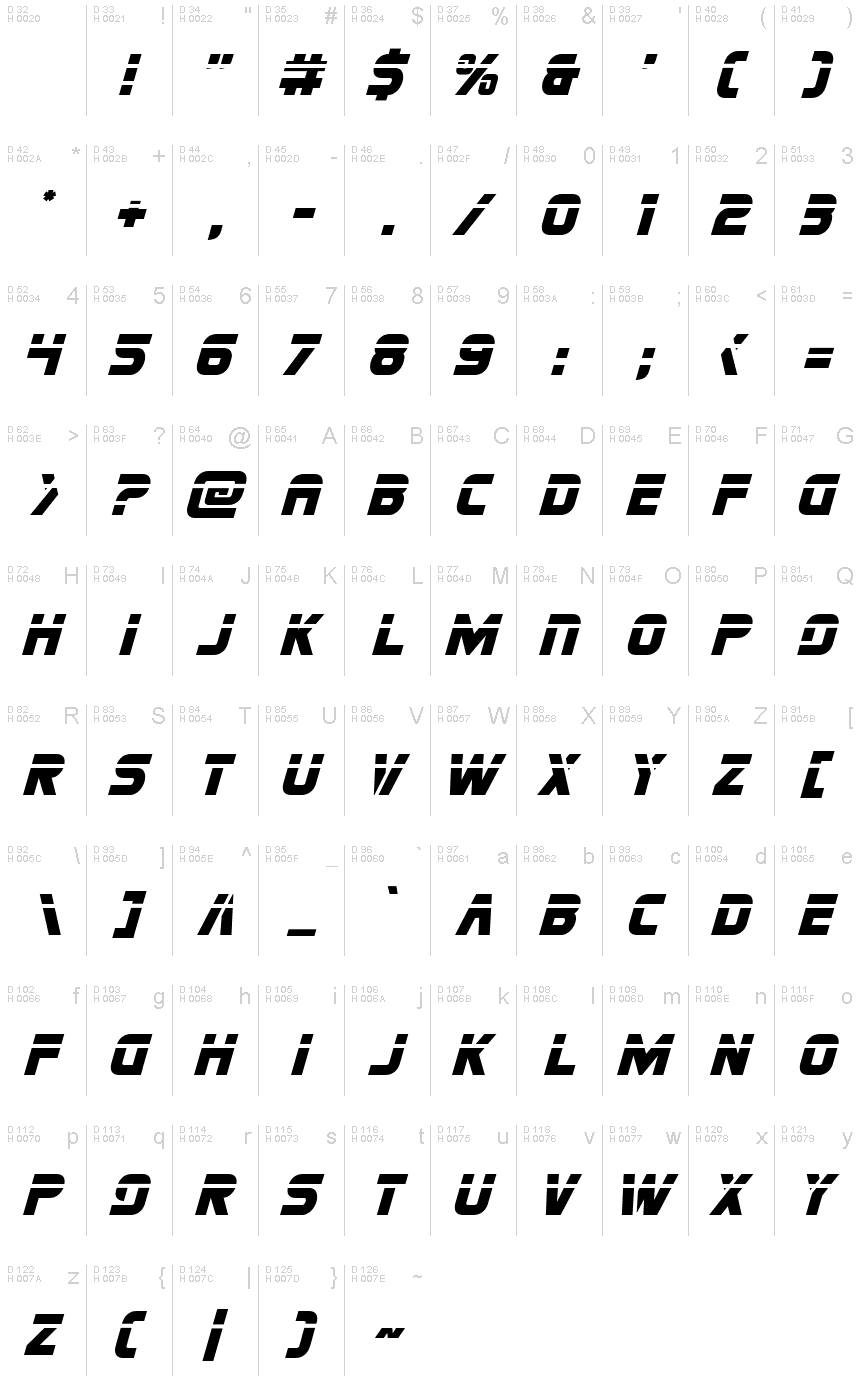
Mission: Danger Laser Italic
Mission: Danger Laser Italic is the latest addition to the Mission: Danger font family designed by Iconian Fonts. This extra-bold display font boasts a futuristic style that is ideal for projects that require a bold and edgy look. With its sharp, laser-like appearance, this font is suitable for creating attention-grabbing headlines, posters, logos or even movie titles. The italicized version of the font adds an extra layer of sophistication and flair to any design project. Whether you're designing for a technology startup or an action-packed film, Mission: Danger Laser Italic will help your brand stand out from the crowd with its bold and modern look.